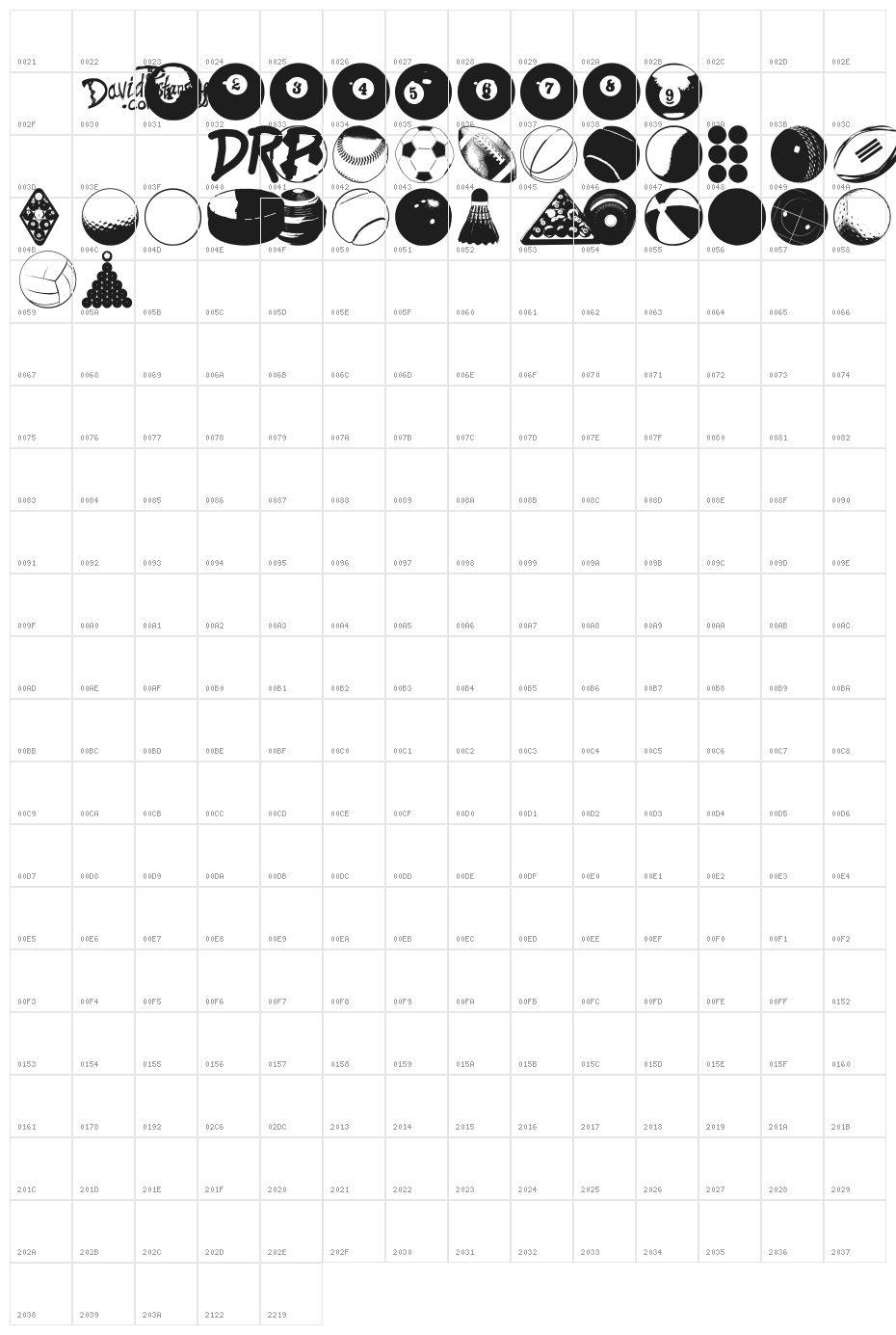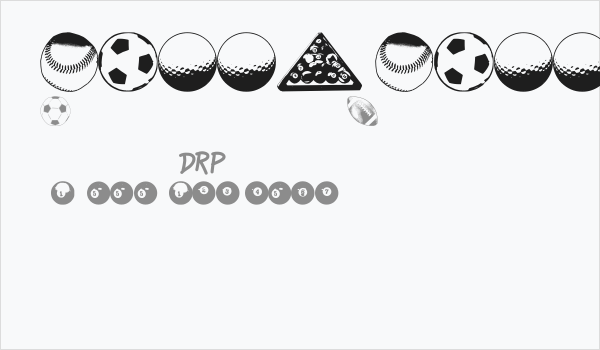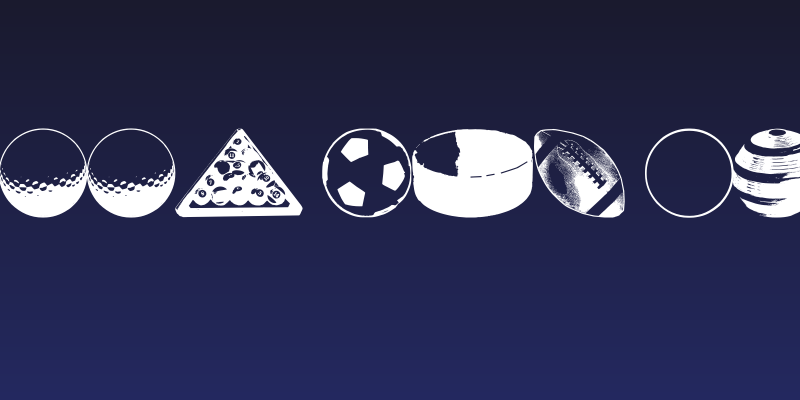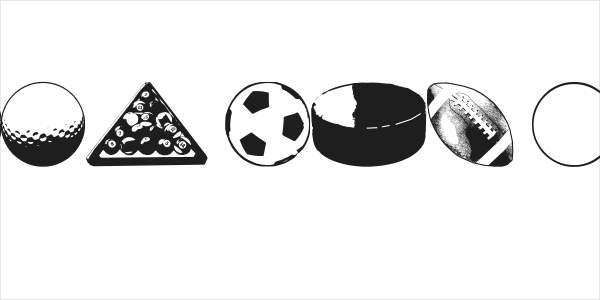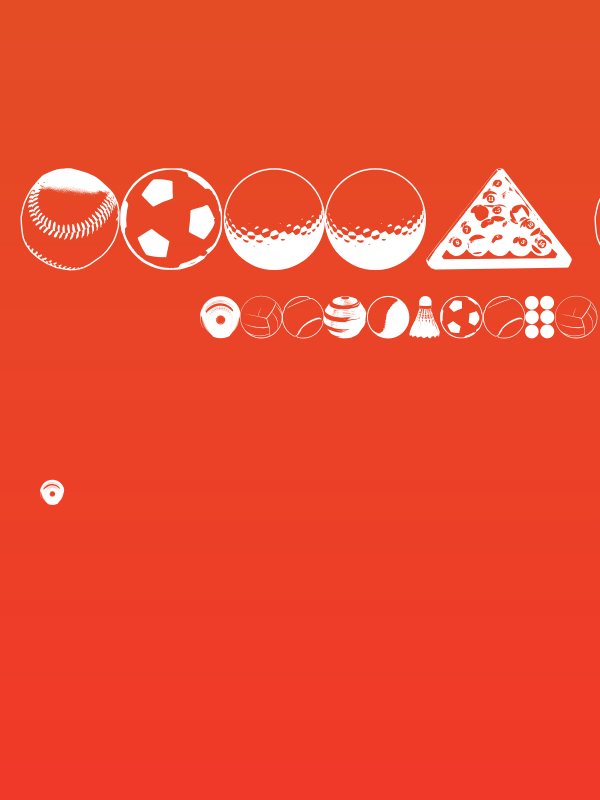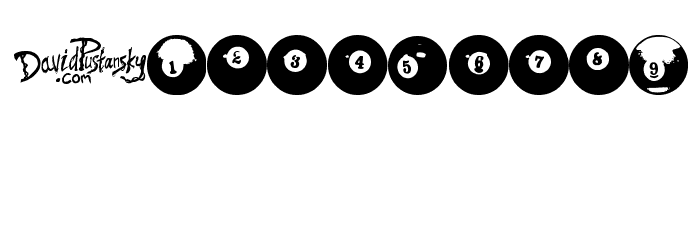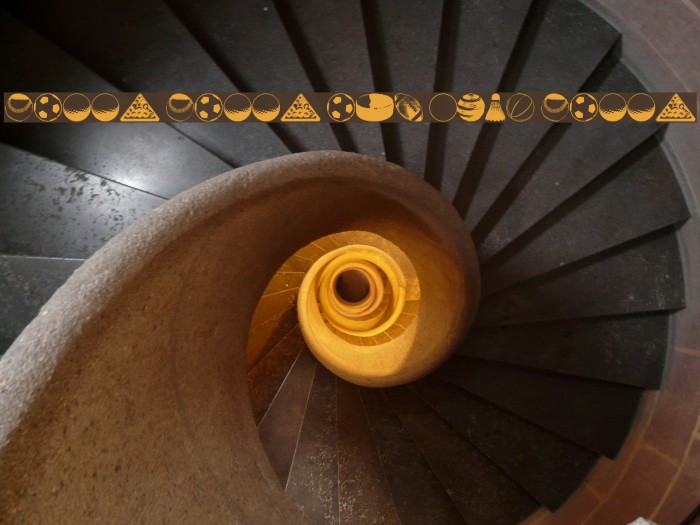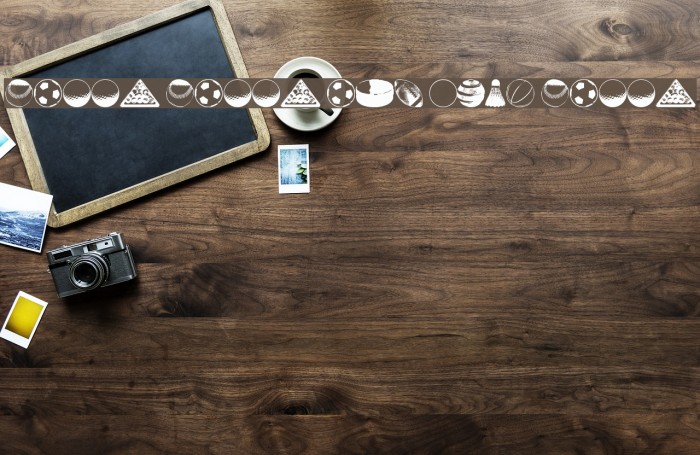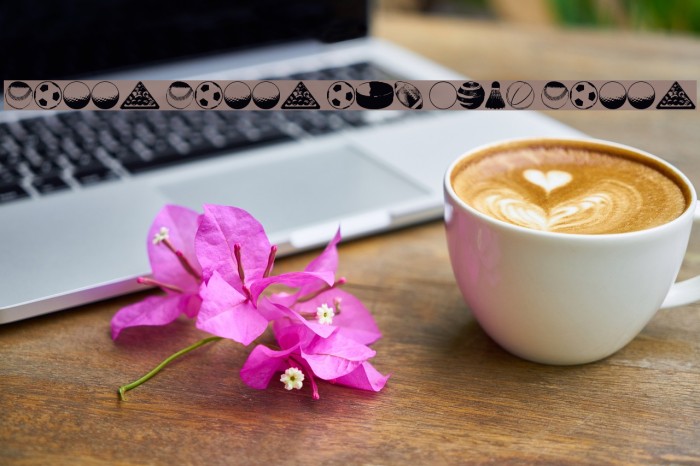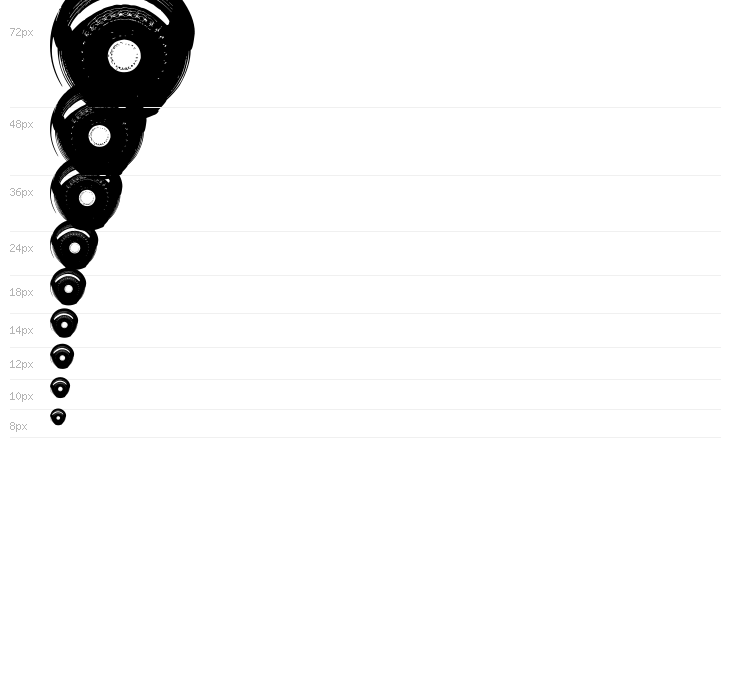
BALLS BALLS AND MORE BALLS Font
BALLS BALLS AND MORE BALLS Description
A playful, illustrative font where each character is represented by a different type of sports ball or related sporting equipment, rendered in high-contrast black and white silhouettes. The style is bold and graphic, with each glyph clearly depicting a recognizable ball or object from various sports such as soccer, basketball, football, tennis, billiards, and more.
| Overall Style | Playful, Decorative, Thematic |
| Use Case | Logos, Headlines, Themed graphics, Educational visuals |
| Proposed Projects | Sports event posters, children's activity flyers, playful branding, themed party invitations, educational materials about sports. |